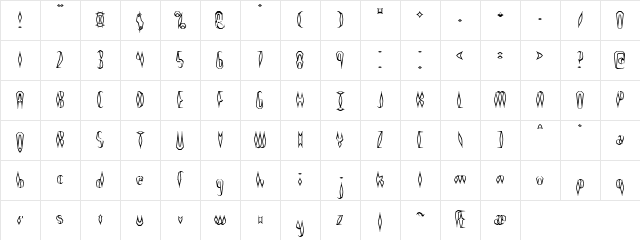
Quill Experimental O BRK Regular Free Font
Design Context for Quill Experimental O BRK
Quill Experimental O BRK is a composed and adaptable typeface that performs quietly and consistently across a wide range of design contexts.